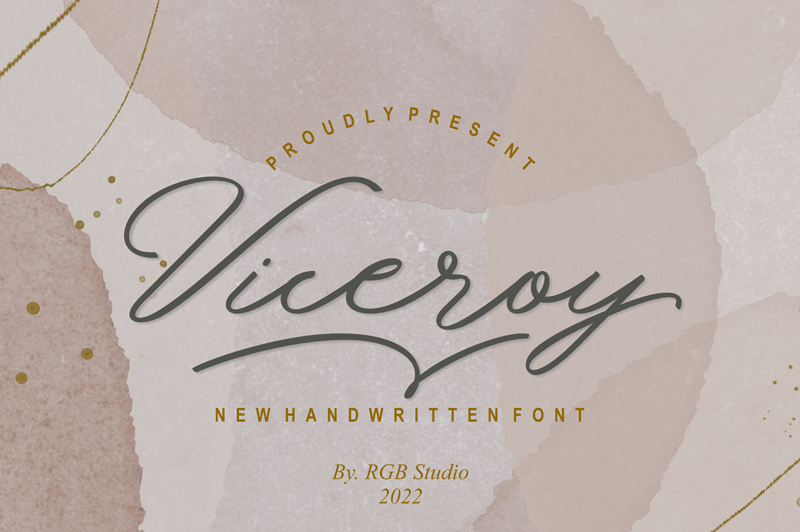
Font name: | Viceroy |
Author: | RGB Studio |
Viceroy is a stylish modern calligraphy font with casual chic flair. It is perfect for branding, wedding invites and cards, and maybe for red wine label. Viceroy includes full set of gorgeous uppercase and lowercase letters, and numerals, a large range of punctuation . All lowercase letters include beginning and ending swashes, giving realistic hand-lettered style. This demo font is for PERSONAL USE ONLY! But any donation are very appreciated. Paypal account for donation : https://www.paypal.com/paypalme/payrgbstudio Link to purchase full version and commercial license : https://crmrkt.com/KgM5qj For Extended License or Corporate License Please Reach Us on email : rgbstudio71@gmail.com if you need something! Happy Designing! Thank you. Regards, RGB Studio |